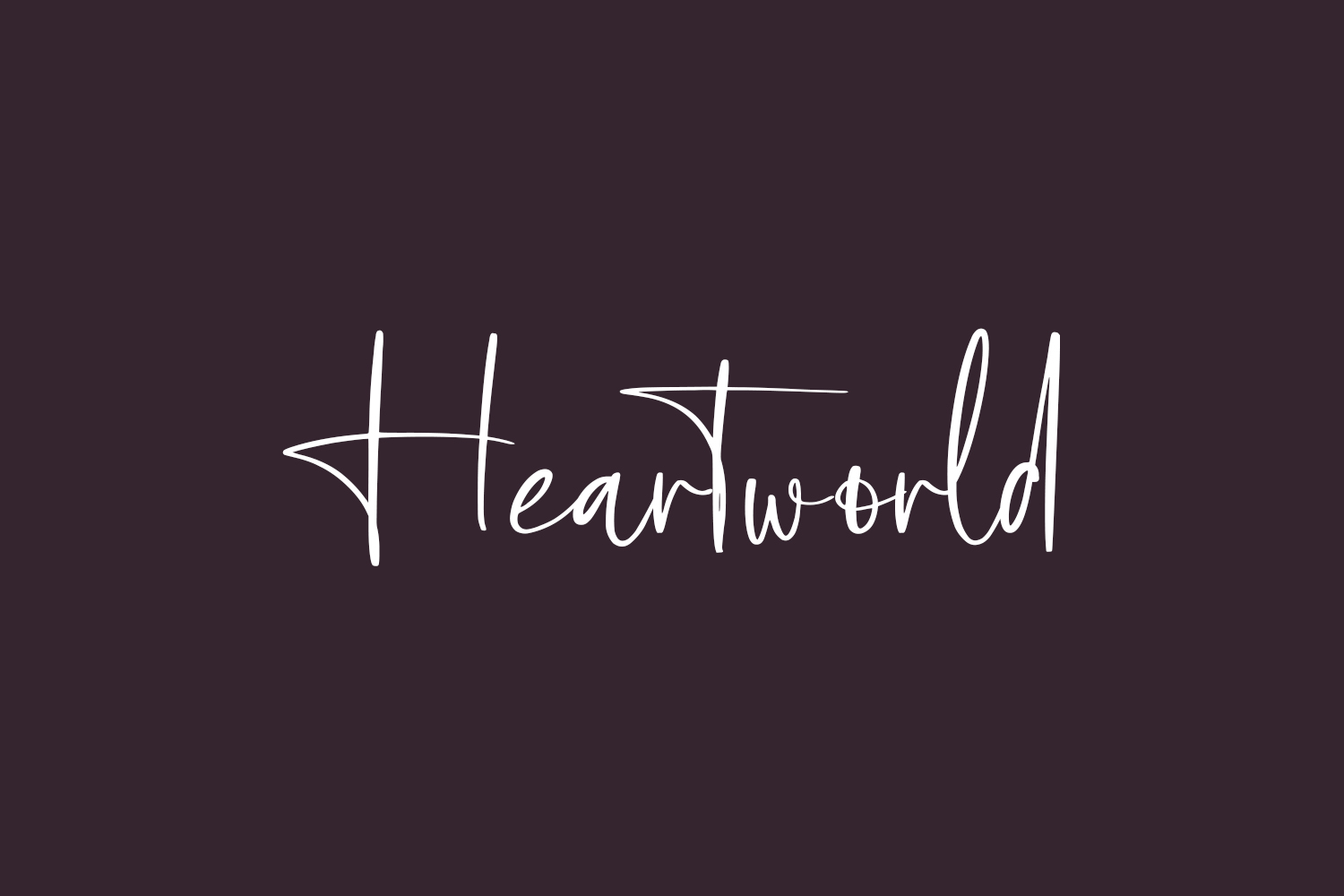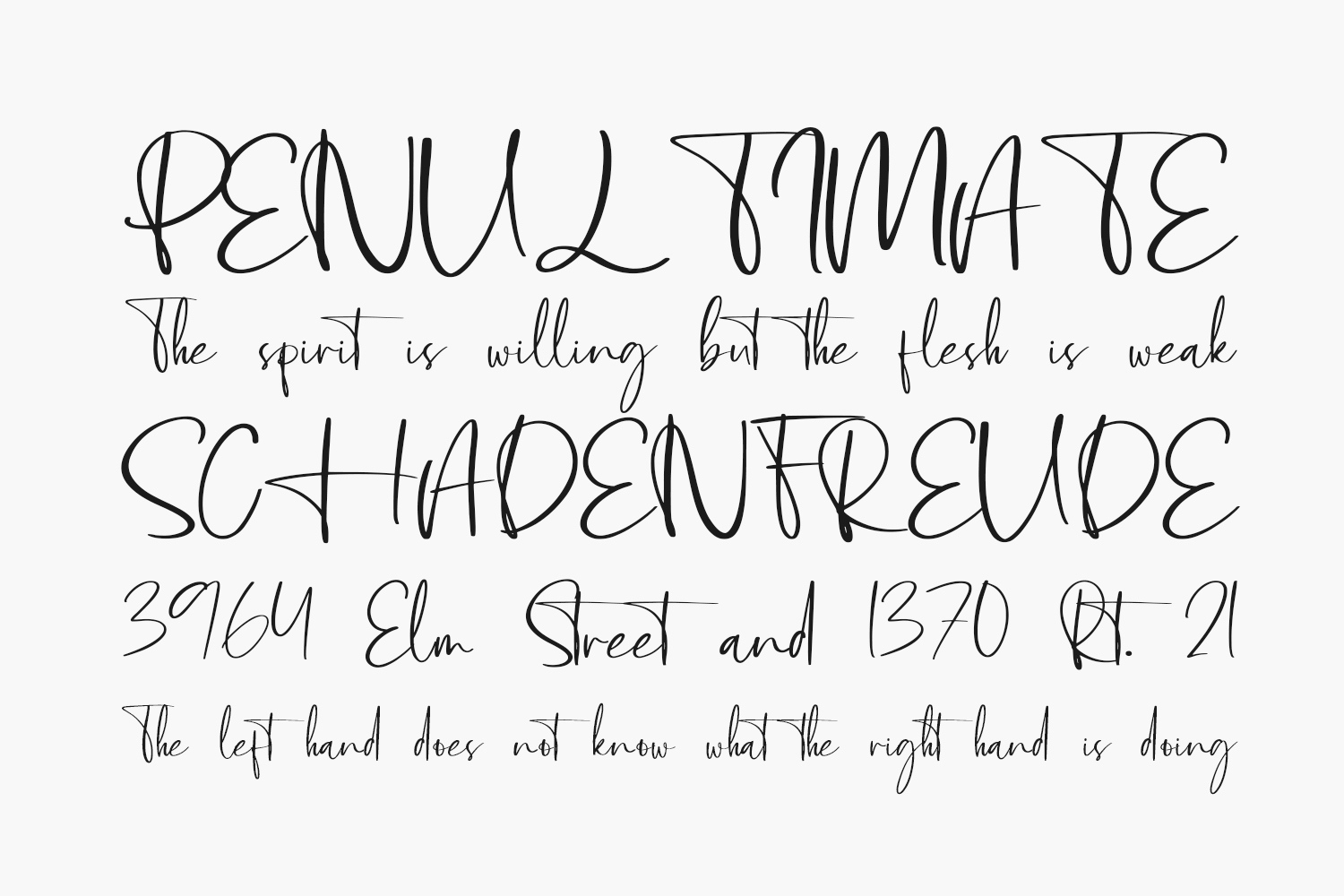
Heartworld Free Font is a font that evokes a sense of wonder and enchantment. Its magical script letters flow and connect in a way that feels like they are dancing on the page. The unique design of each letter gives the font a lively and emotional feel, perfect for creating designs that evoke feelings of love, joy, and positivity. The free version can be easily integrated into any design software. Heartworld is a font that will bring a touch of magic and emotion to any project. It’s the perfect choice for creating invitations, social media graphics, and anything that needs to connect with people’s emotions and feelings.